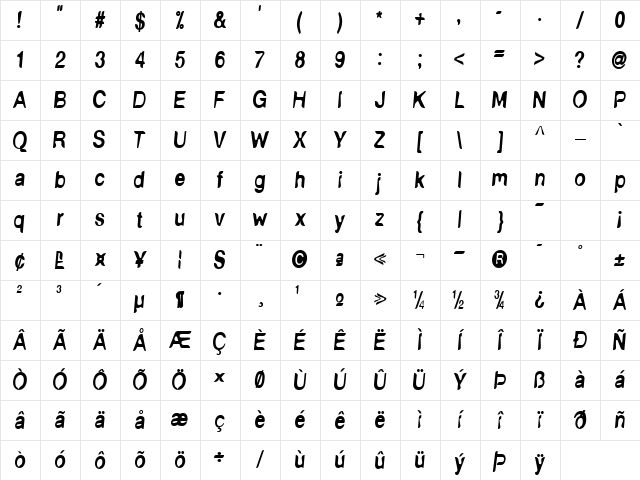
NudE Rubenesque Regular
Design Context for NudE Rubenesque
NudE Rubenesque is a composed and adaptable typeface that performs quietly and consistently across a wide range of design contexts.
Pro Tip: Use NudE Rubenesque in both headline and body roles to test its range before committing to a single application.